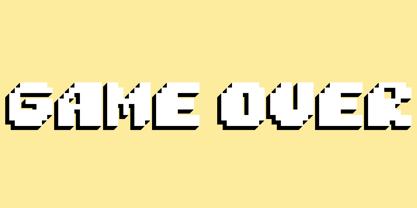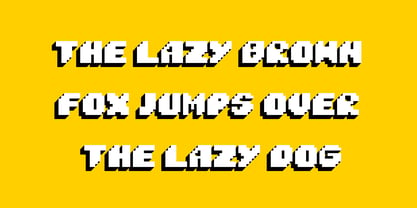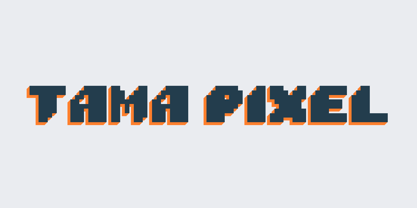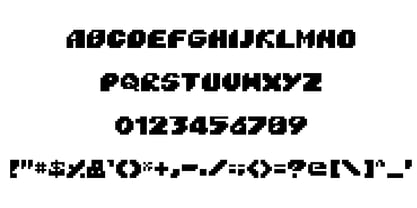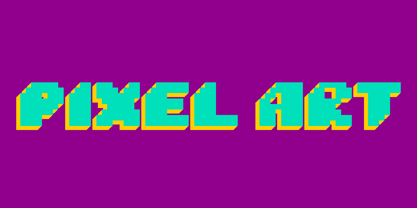
Tama Pixel
The Tama Pixel Font Family was designed by Tamal Das and published by Tamal. Tama Pixel contains 1 styles. More about this family
Tama Pixel Font 8x8 Retro is a meticulously handcrafted pixel font designed using an authentic 8x8 bitmap grid approach. Drawing inspiration from the visual aesthetics of classic arcade machines, early home computers, and 8-bit gaming systems, this typeface embodies a distinctive retro identity characterized by sharp edges and consistent pixel placement. Perfect for: - Retro and pixel-art games - Game UI and HUD elements - Logos and titles - Digital art projects - Posters and graphics - Streaming overlays - Vintage computer-inspired designs Infuse your creative projects with the nostalgic essence of classic gaming and early digital graphics using Tama Pixel Font 8x8 Retro, making it an ideal choice for branding, web design, and editorial use.